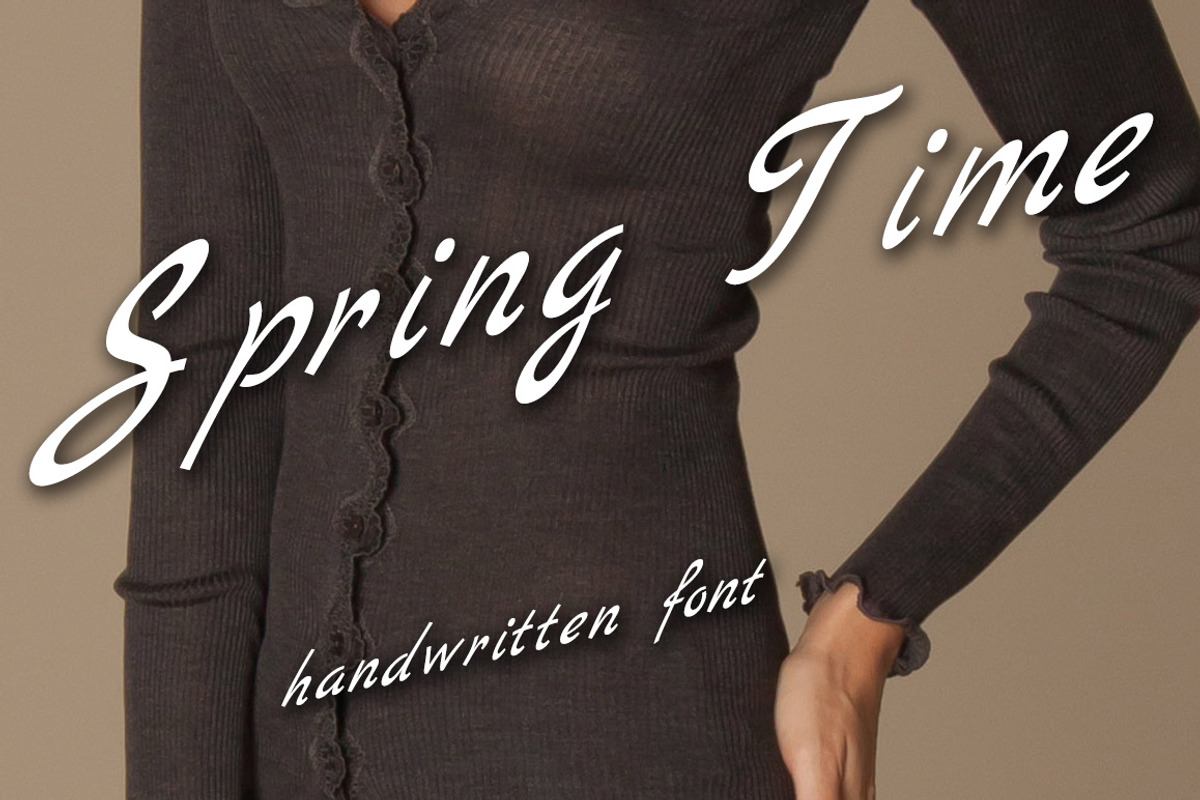
The Spring Time Font Family Free Download is a charming and versatile handwritten font family that brings a fresh and lively touch to your designs. Perfect for creating logos, invitations, greeting cards, branding materials, and social media graphics, this font family adds a warm, personal, and artistic feel to any project. Please note, for commercial use, a license must be purchased. You can download it for free for testing purposes.
With its range of script and regular weights, the Spring Time Font Family Free Download is ideal for projects that require both elegance and a casual handwritten style. Whether you’re designing for spring-themed events, custom stationery, or creative branding, this font family offers flexibility and style.